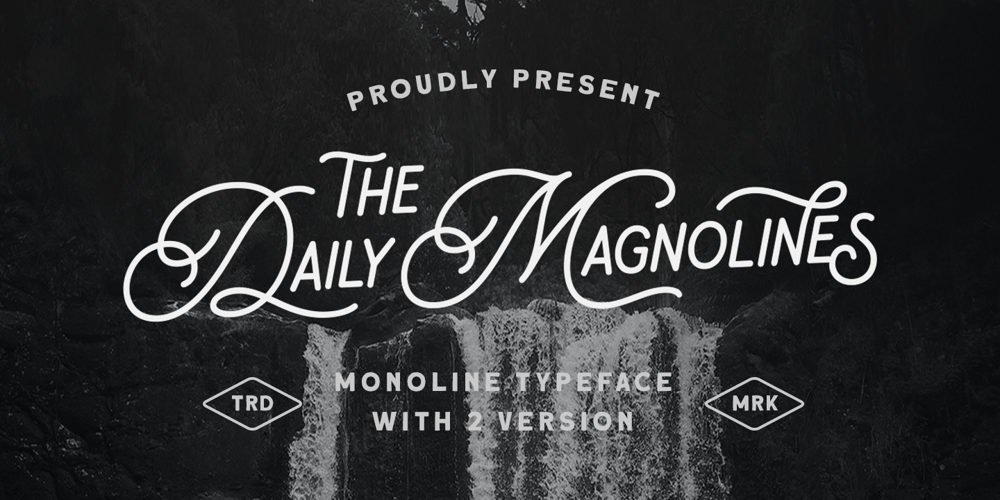
Daily Magnolines Font Family was designed by Hendry Juanda and published by Letterhend. Daily Magnolines contains 2 styles and family package options. Daily Magnolines is a sophisticated and modern monoline typeface with a charmingly rough version, adding an artistic touch to your designs. This versatile font is designed to capture attention and bring a touch of elegance to any project. Whether used for branding, headlines, invitations, packaging, or social media graphics, this font effortlessly blends classic and contemporary aesthetics, making it a perfect choice for both print and digital projects. Features : Uppercase & lowercase Numbers and punctuation Alternates & Ligatures Multilingual PUA encoded We highly recommend using a program that supports OpenType features and Glyphs panels like many of Adobe apps and Corel Draw, so you can see and access all Glyph variations.